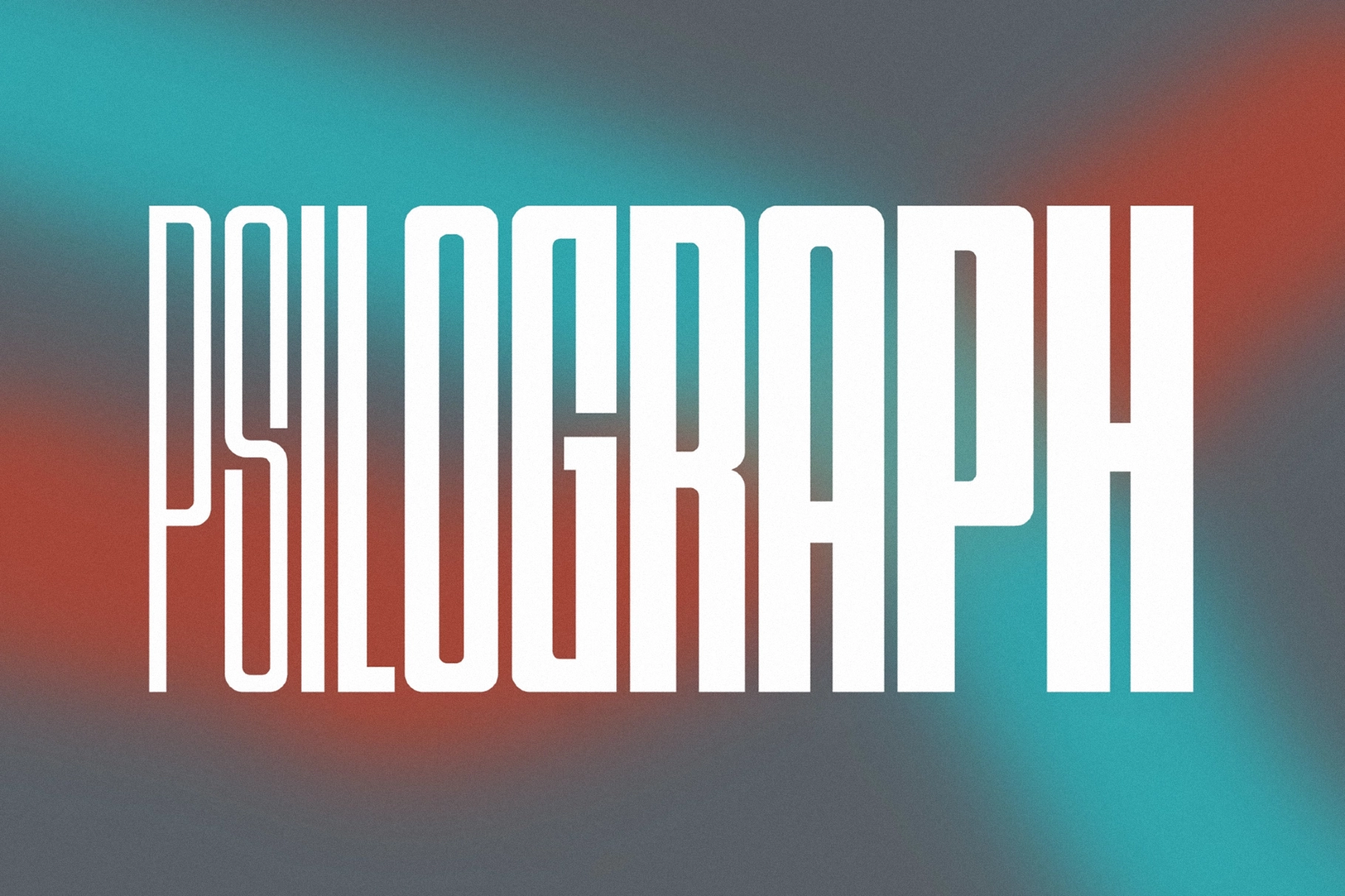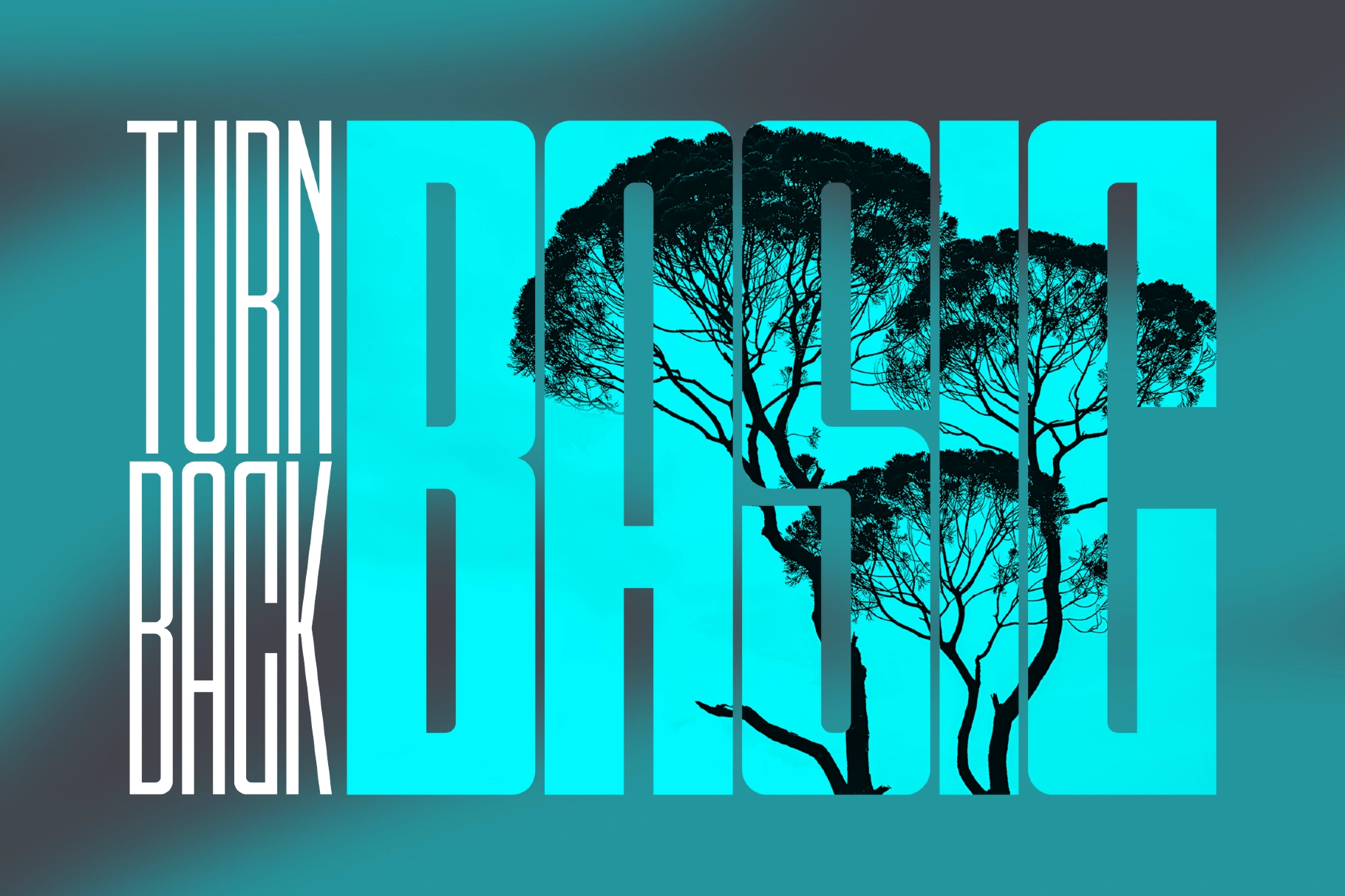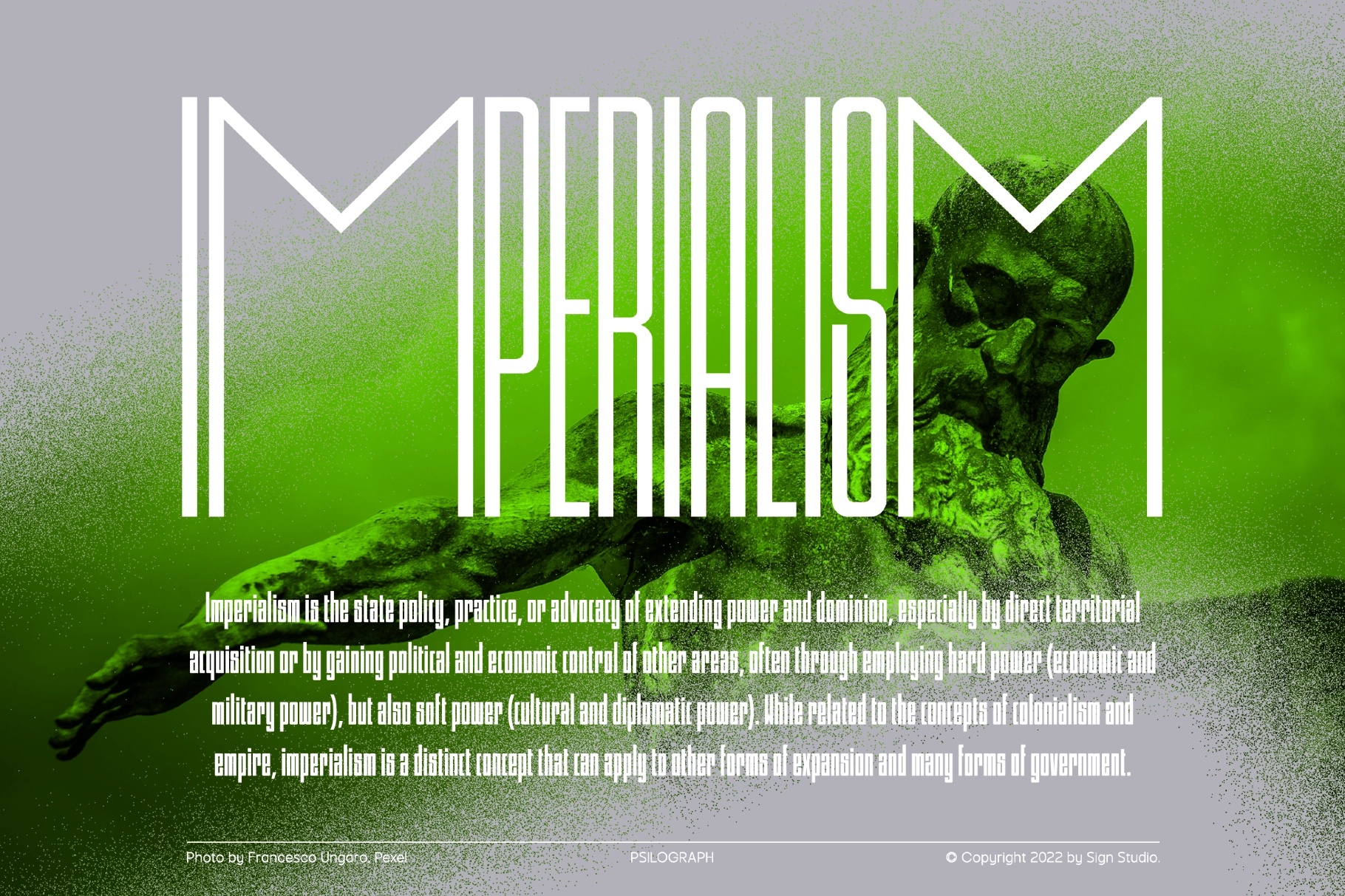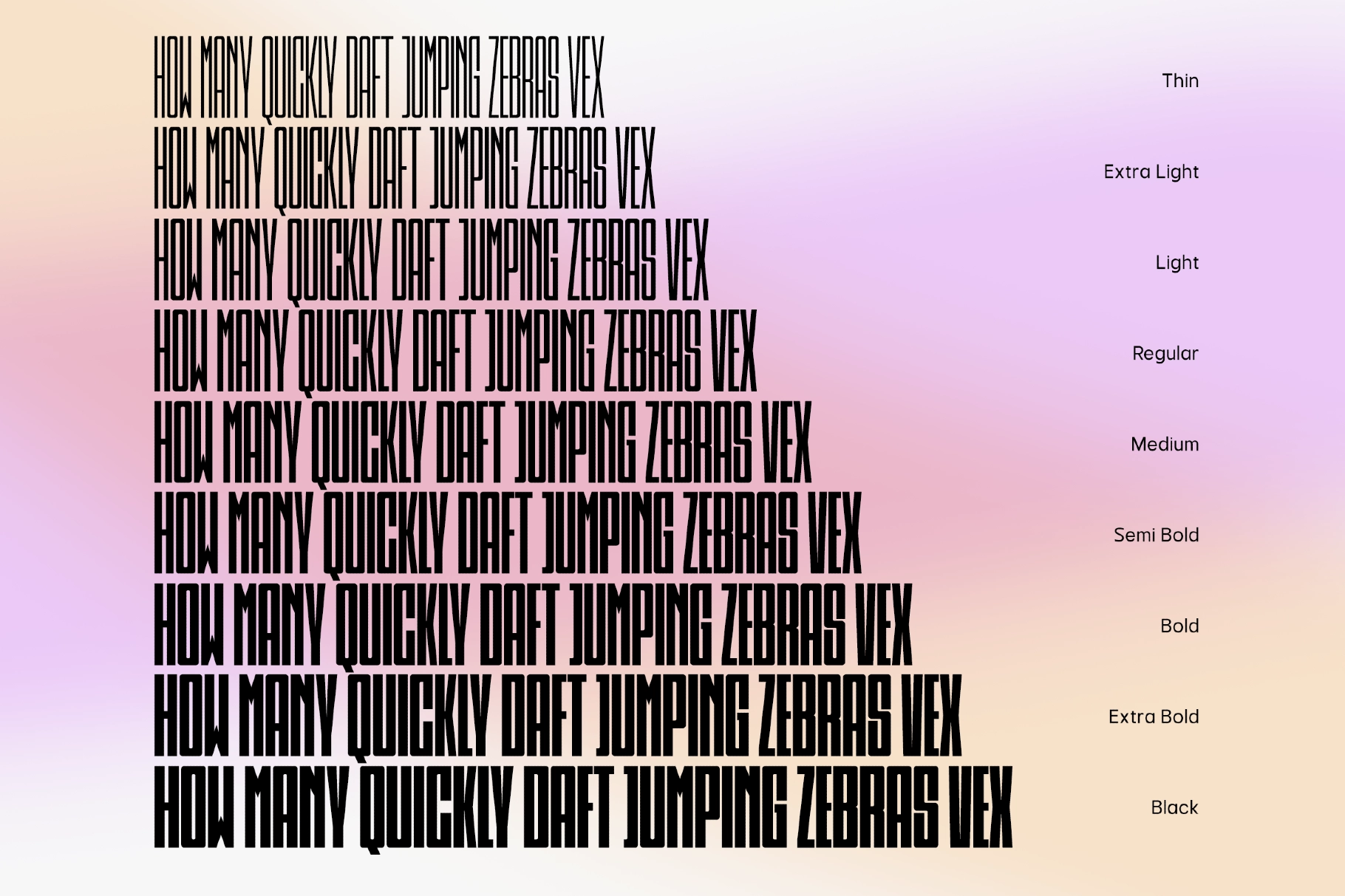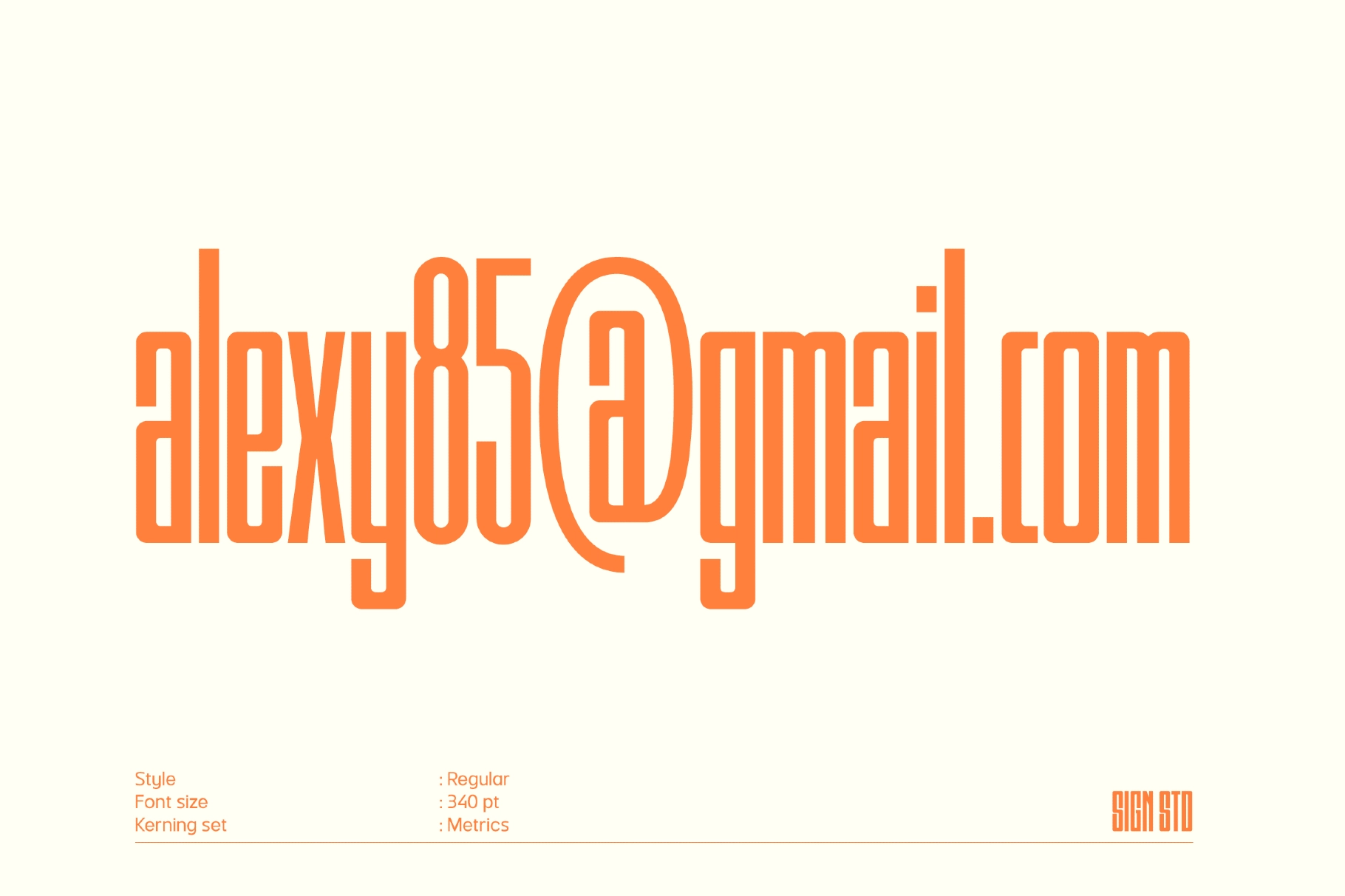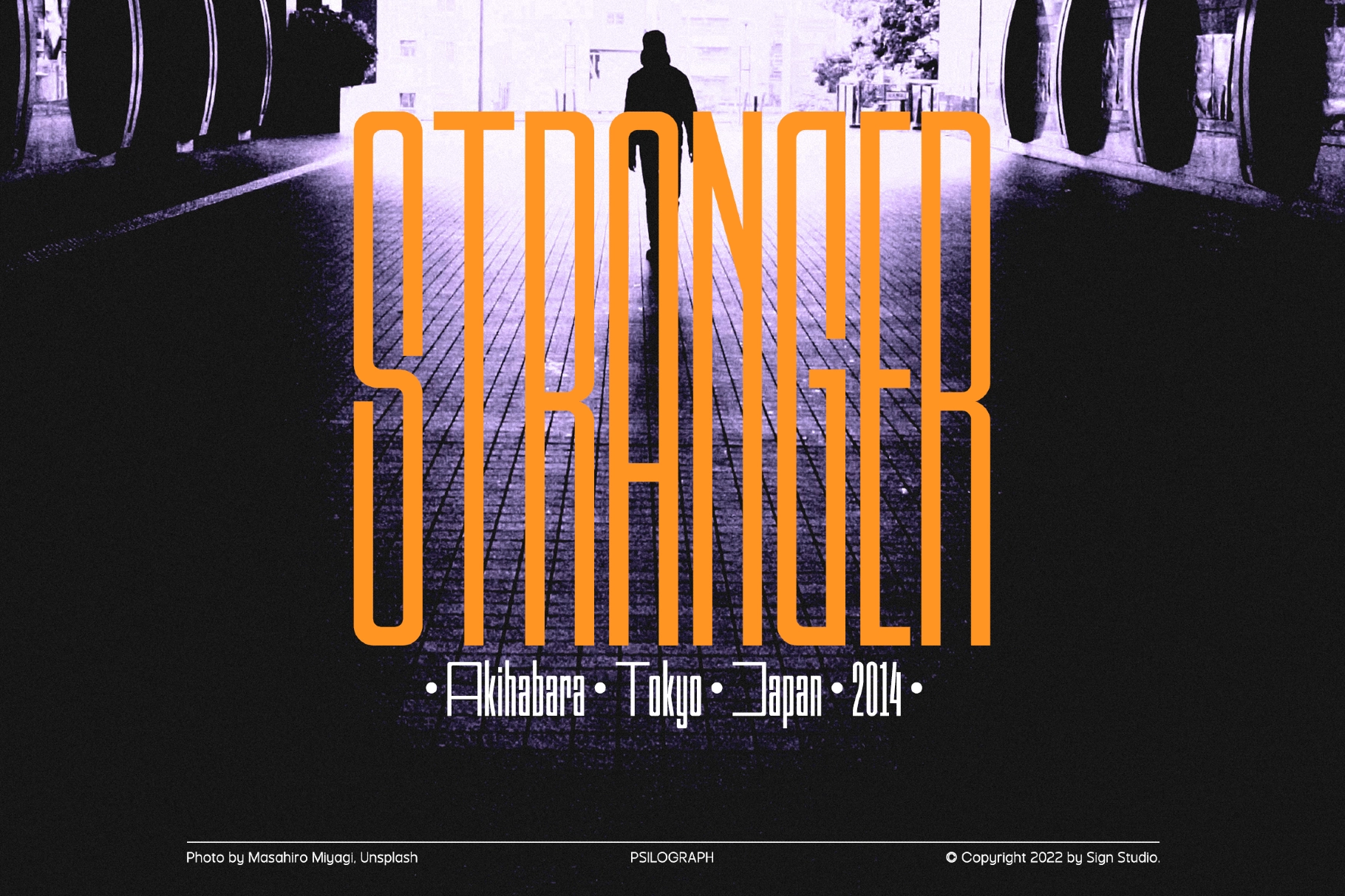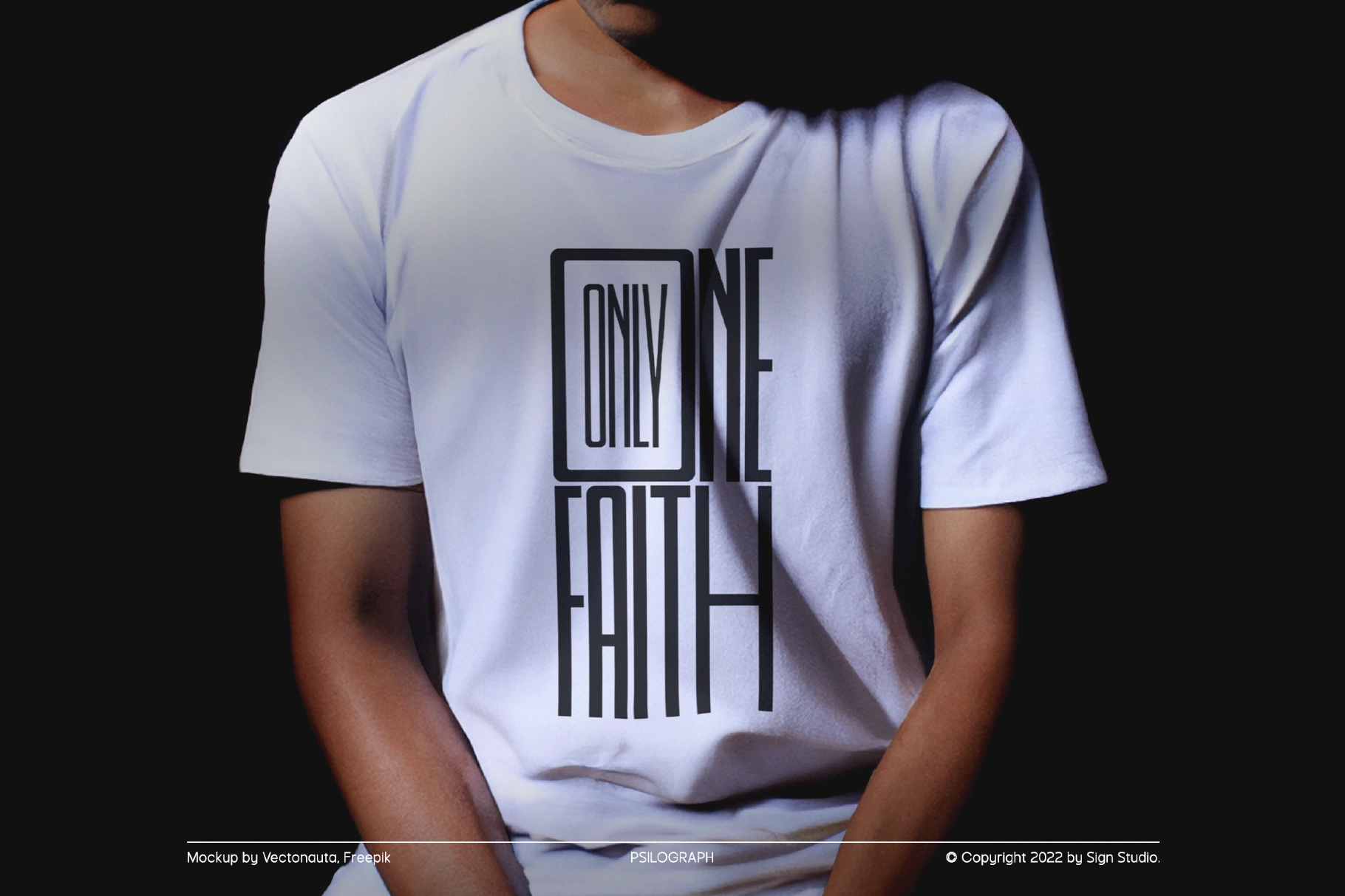
Psilograph - Extra Condensed Font
This condensed display typeface has tall proportions, tight spacing, and a sharp vertical rhythm made for headlines that need scale without eating the whole layout. Its narrow letterforms pair clean geometry with angular cuts, giving the type a crisp, architectural character across thin weights and heavy blocks alike.
Psilograph works well for posters, editorial titles, album covers, festival lineups, fashion campaigns, tech branding, packaging, signage, movie credits, magazine spreads, website headers, app graphics, social media visuals, and more. The wide weight range makes it easy to move from refined minimal titles to loud, full-width statements — typography with elbows, basically.
- Multiple weights